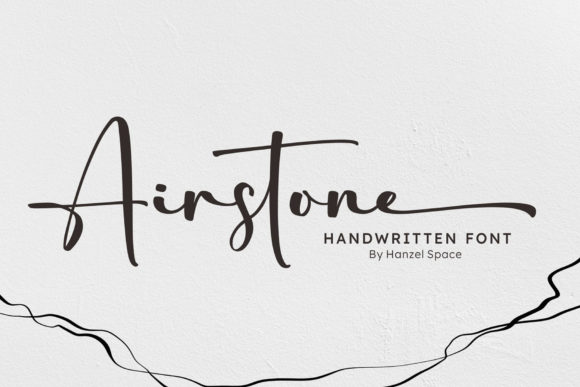
The Airstone Font: Elevate Your Designs with Elegance
The Airstone font is a stylish and chic script font that can instantly elevate your designs. Its ravishing style makes it perfect for creating gorgeous wedding invitations, beautiful stationery art, eye-catching social media posts, and much more!
An Honest Review of Airstone Font
What I Love About Airstone Font
- ✨ Elegant and sophisticated design
- ✅ Highly versatile and adaptable to various design projects
- 💫 Beautifully crafted to add a touch of luxury to your designs
- 🎉 Easy to read and understand, even in smaller font sizes
While the Airstone font is an excellent choice for many design projects, there are a few minor quirks to be aware of: 🤔
- ⚠️ Limited availability of bold or heavy font weights, which might not be suitable for designs requiring a stronger visual impact
- ⚠️ Some users may find the font’s script style too ornate or elaborate for certain design projects
- Experiment with OpenType features, such as ligatures and stylistic alternates, to add more flair to your text.
- Explore the OpenType panel to access glyphs, ligatures, and stylistic alternates.
The Backstory of Airstone Font
The Airstone font was designed with the intention of creating a beautiful, elegant script font that could be used for a variety of design projects. While the actual design process and inspiration behind the font are unclear, it’s evident that the designer aimed to create a font that exudes luxury, sophistication, and elegance.
Q: What type of designs is the Airstone font best suited for?
A: The Airstone font is perfect for designs that require elegance and sophistication, such as wedding invitations, stationery art, and social media posts.
Q: Is the Airstone font available in different font weights?
A: The Airstone font may have limited font weights available, but it’s best to check with the font’s creator or distributor for more information.